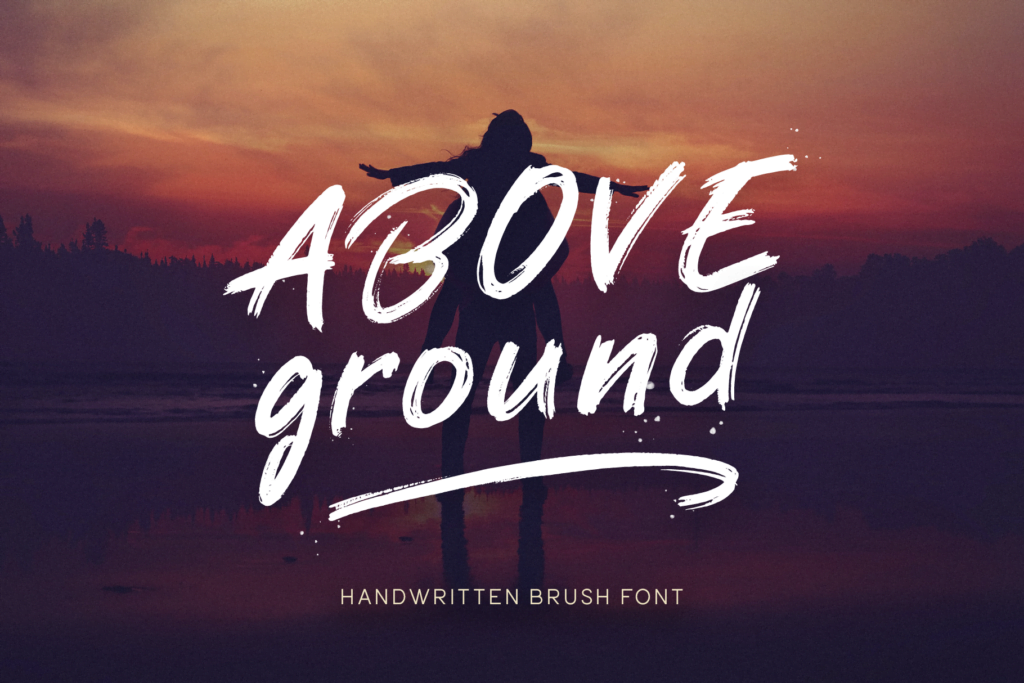
Above Ground Font
Above Ground is a cool, relaxed and brush handwritten font. This font is PUA encoded which means you can access all of the glyphs and swashes with ease!
Above Ground is suitable for designs such as t-shirts, sportswear, logos, advertisements, clothing, and more.
Above Ground Brush Font